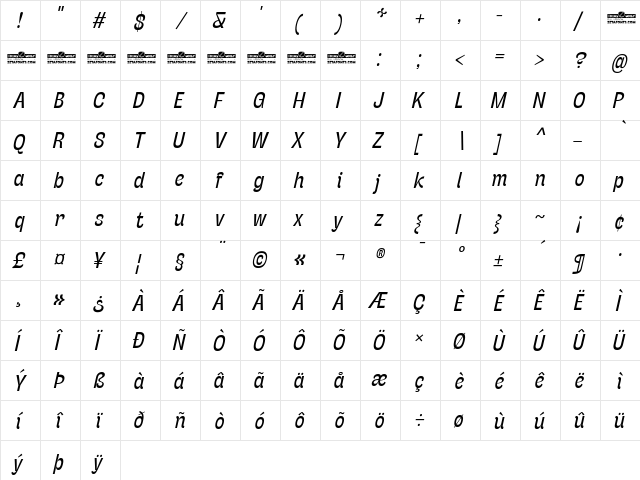
Stinger Slim Trial Italic
| Foundry | Studio Kmzero & Zetafonts |
| Designer | Cosimo Lorenzo Pancini |
Design Context for Stinger Slim Trial Typeface
Stinger Slim Trial takes a measured approach to typography — its balanced proportions and neutral character make it a reliable workhorse for both digital and print work. The slanted form adds forward momentum and visual energy.